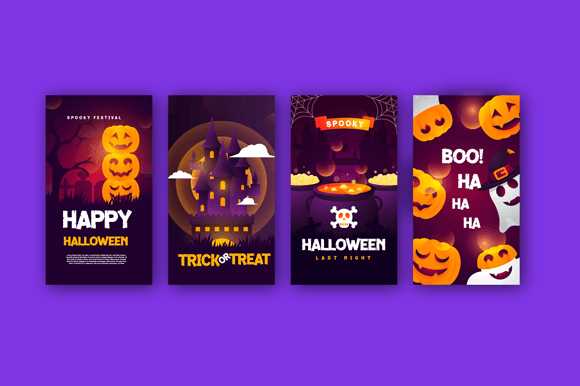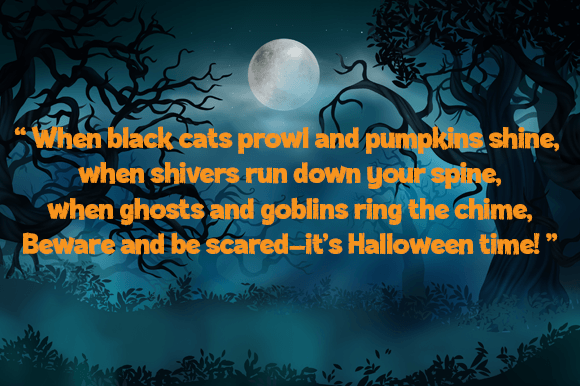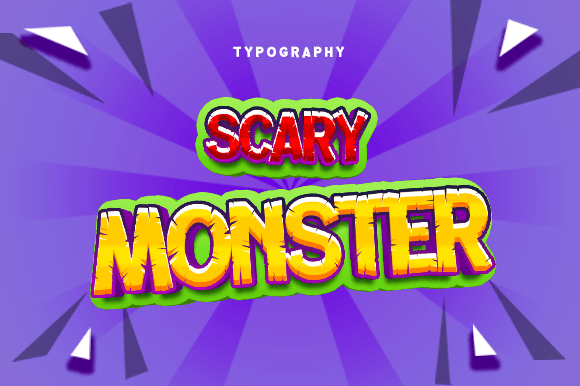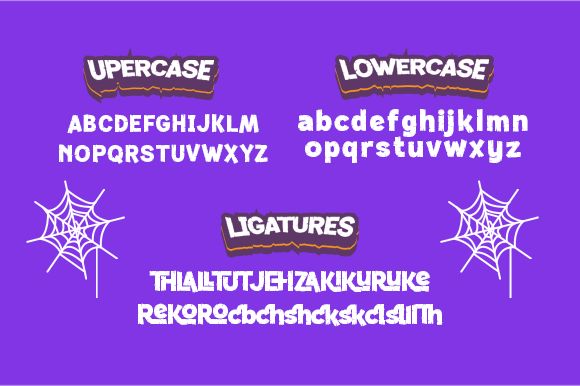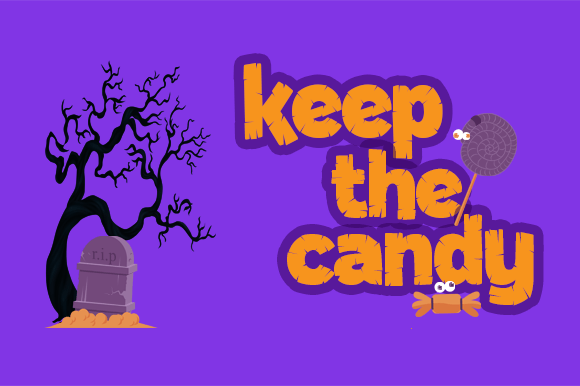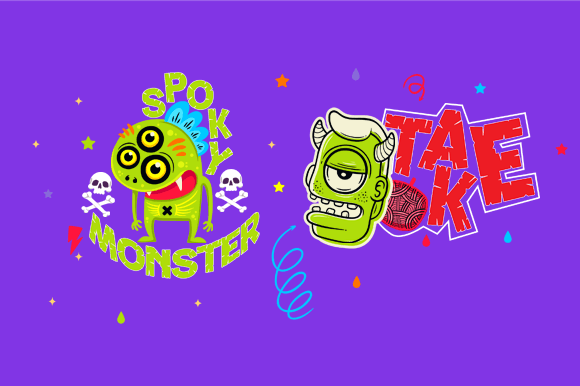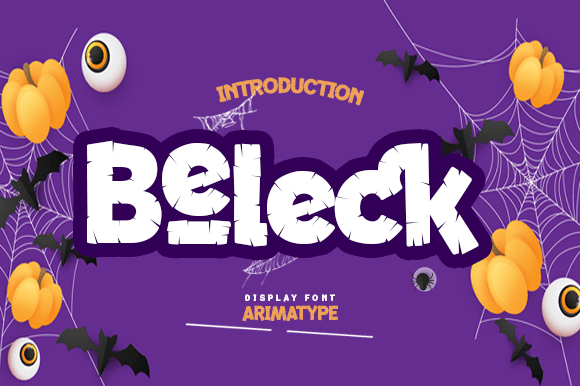
Unleash the Spookiness: A Comprehensive Guide to Beleck Font
Are you a designer or crafter looking for a font that adds a touch of whimsy and spookiness to your projects? Look no further than Beleck Font, a fun and cool display font that’s perfect for Halloween or horror-themed designs. In this article, we’ll dive into the features and benefits of Beleck Font, and explore how you can use it to take your designs to the next level.
What is Beleck Font?
Beleck Font is a display font that’s designed to add a touch of playfulness and eeriness to your designs. With its unique and quirky style, this font is perfect for creating eye-catching headlines, titles, and graphics for Halloween or horror-themed projects. Whether you’re designing invitations, posters, or social media graphics, Beleck Font is sure to make your designs stand out.
Key Features of Beleck Font
So, what makes Beleck Font so special? Here are some of its key features:
- Whimsical and Spooky Design: Beleck Font has a unique and playful design that’s perfect for adding a touch of whimsy and spookiness to your designs.
- PUA Encoded: This font is PUA (Private Use Area) encoded, which means you can access all the glyphs and ligatures with ease. This makes it easy to use and customize the font to suit your needs.
- Perfect for Halloween or Horror-Themed Designs: Beleck Font is specifically designed for Halloween or horror-themed designs, making it perfect for creating spooky and eye-catching graphics.
Benefits of Using Beleck Font
So, why should you use Beleck Font in your designs? Here are some of the benefits of using this font:
- Adds a Touch of Whimsy and Spookiness: Beleck Font adds a unique and playful touch to your designs, making them stand out from the crowd.
- Easy to Use: With its PUA encoding, Beleck Font is easy to use and customize, even for designers who are new to using specialty fonts.
- Versatile: Beleck Font can be used for a wide range of design projects, from invitations and posters to social media graphics and more.
How to Use Beleck Font in Your Designs
Using Beleck Font in your designs is easy. Here are some tips to get you started:
- Choose the Right Project: Beleck Font is perfect for Halloween or horror-themed designs, so choose a project that fits the theme.
- Experiment with Different Sizes and Styles: Beleck Font looks great in a variety of sizes and styles, so experiment with different options to find the one that works best for your design.
- Pair with Other Fonts: Beleck Font can be paired with other fonts to create a unique and eye-catching design. Try pairing it with a sans-serif font for a bold and playful look.
Tips and Tricks for Getting the Most Out of Beleck Font
Here are some additional tips and tricks for getting the most out of Beleck Font:
- Use it for Headlines and Titles: Beleck Font is perfect for creating eye-catching headlines and titles that will grab the attention of your audience.
- Add a Personal Touch: Beleck Font can be used to add a personal touch to your designs. Try using it to create custom graphics or illustrations.
- Experiment with Different Colors: Beleck Font looks great in a variety of colors, so experiment with different options to find the one that works best for your design.
| Font Name | Beleck Font |
| Author | arimatype |
In conclusion, Beleck Font is a fun and cool display font that’s perfect for adding a touch of whimsy and spookiness to your designs. With its unique and quirky style, PUA encoding, and versatility, this font is sure to become a go-to in your design toolkit. Whether you’re a designer or crafter, Beleck Font is a great choice for any Halloween or horror-themed project.